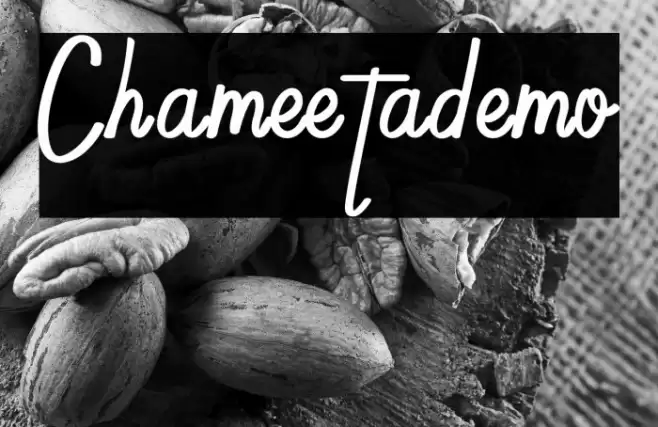
Chameetademo Font
Chameetademo Description
This font features a lively and dynamic handwritten style, characterized by its fluid and connected strokes. The letters exhibit a playful yet elegant appearance, with a slight slant that adds to its casual charm. The uppercase letters are bold and prominent, while the lowercase letters maintain a consistent flow, enhancing readability. The font's unique personality is further emphasized by its varying stroke widths, which create a natural and organic look. This style is perfect for projects that require a personal touch, such as invitations, greeting cards, and creative branding.
A lively, handwritten font with fluid strokes and a playful elegance from Regular fonts.
- Proposed Projects: Ideal for invitations, greeting cards, creative branding, and personal projects.
- Use Case: Logos, Headlines, Invitations